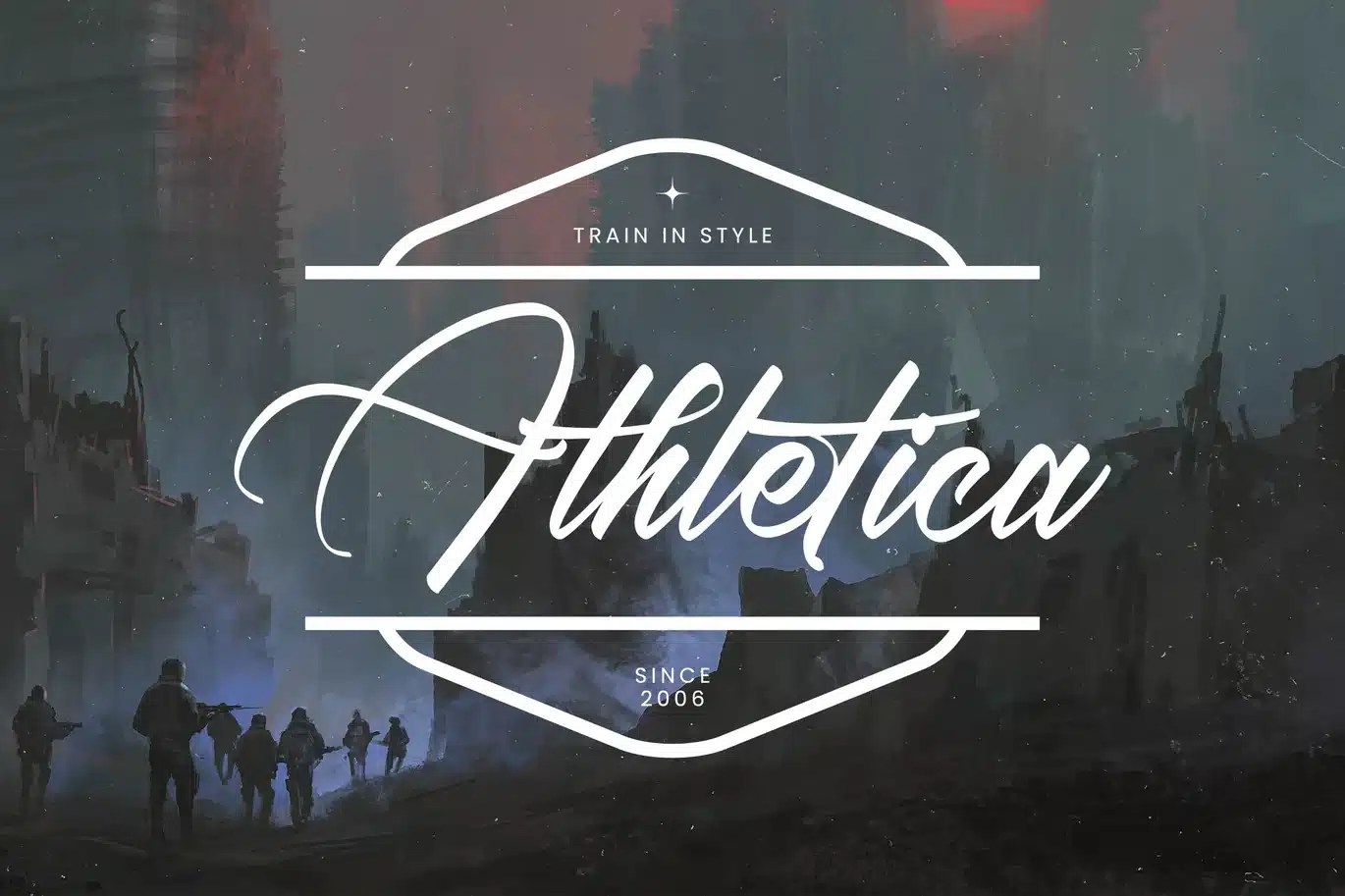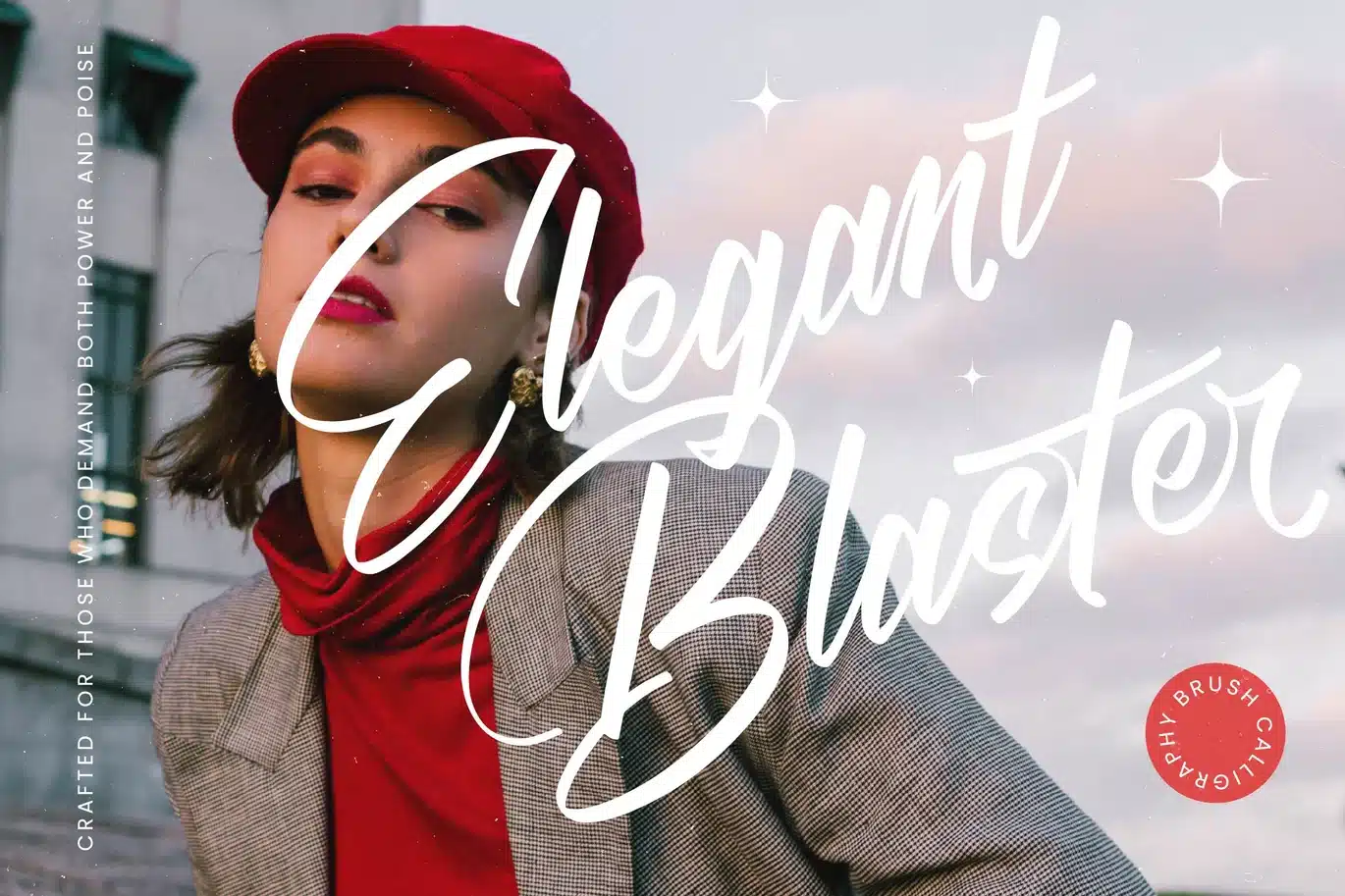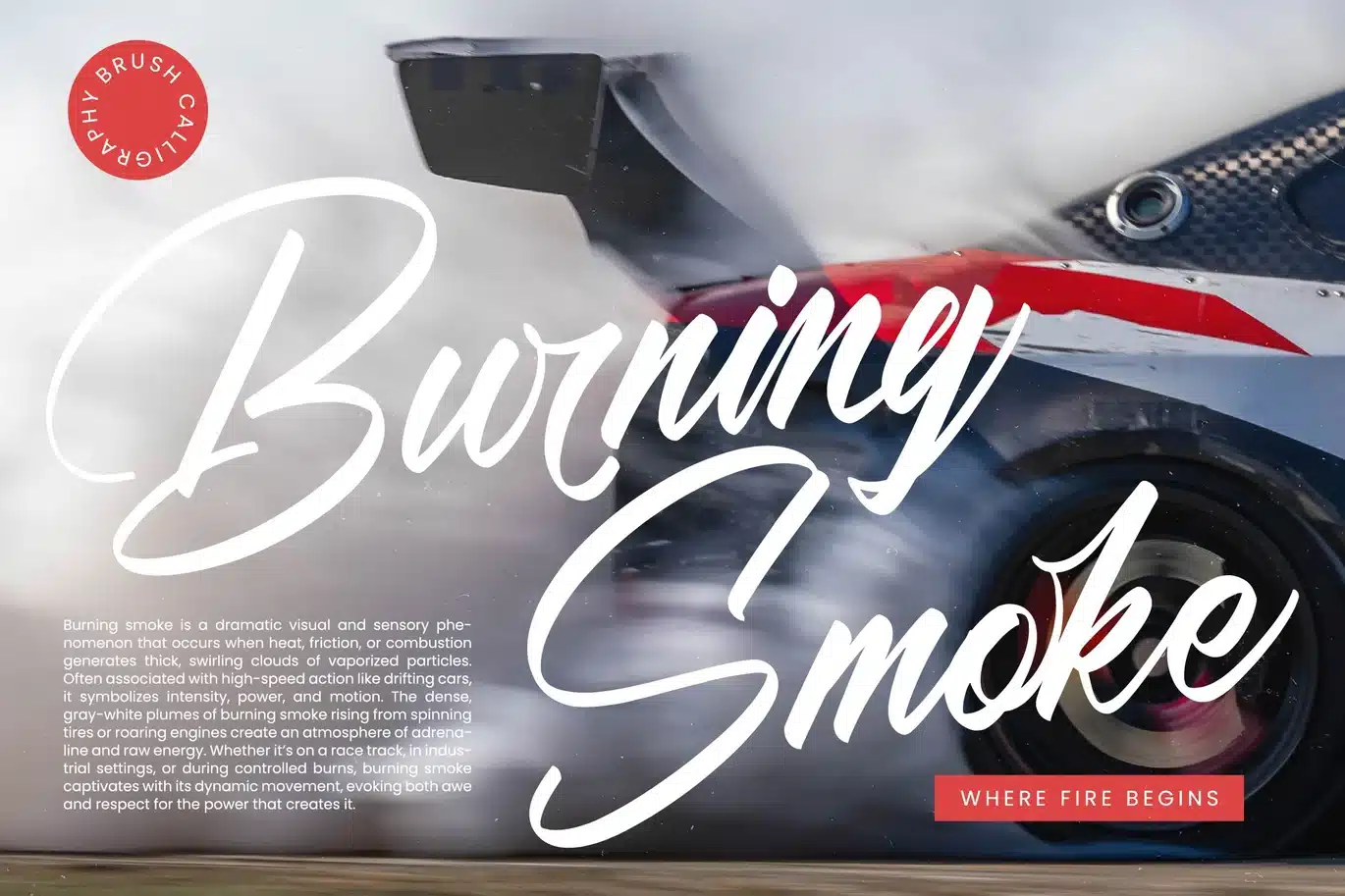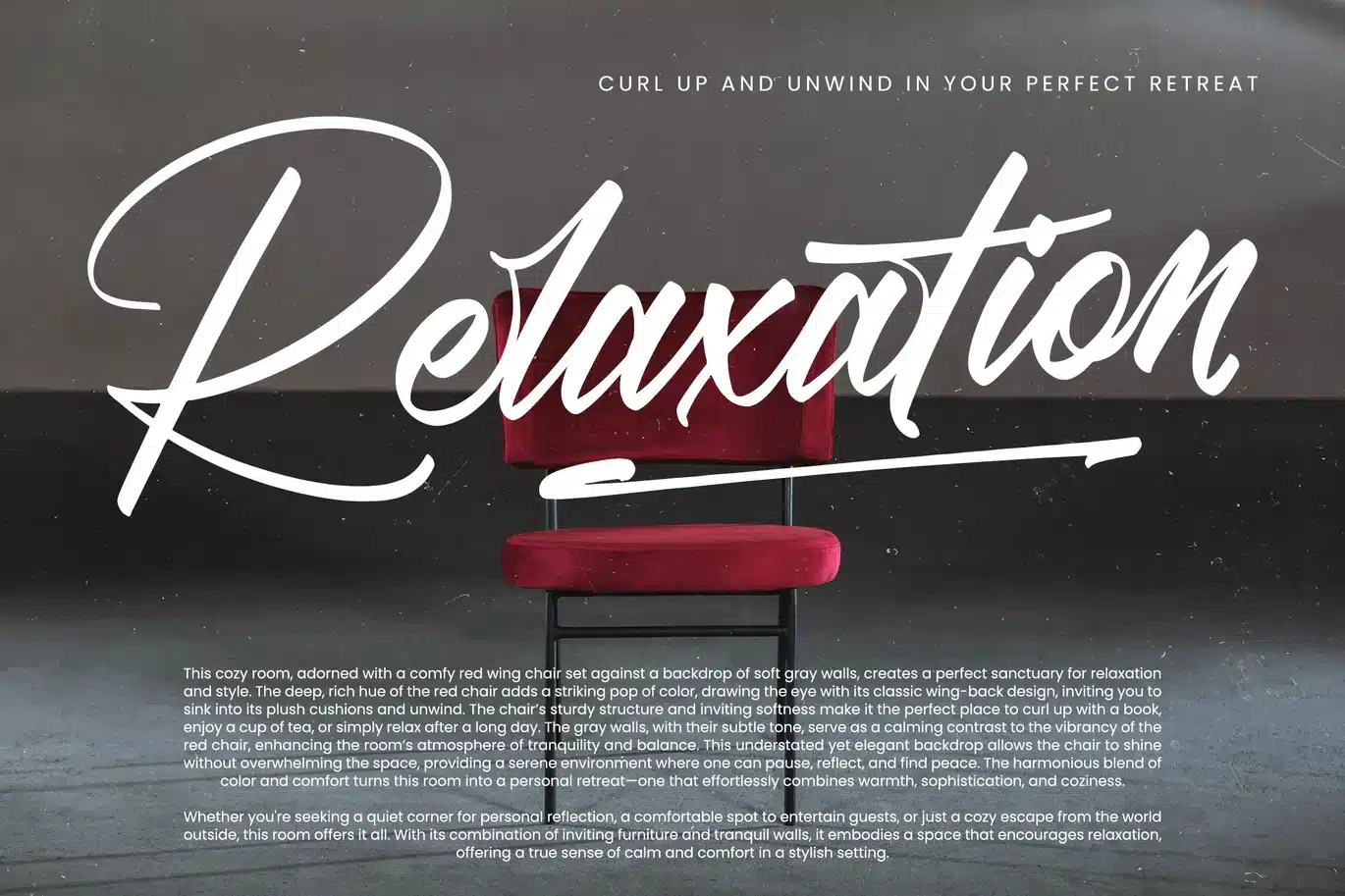
Black Fatal – Brush Calligraphy Font
Black Fatal - Brush Calligraphy Font
Black Fatal is a bold brush calligraphy font that combines raw energy with elegant handwritten artistry. Its dynamic strokes, confident flow, and expressive swashes make it a versatile typeface for projects that require impact and sophistication. Featuring 129 ligatures, 28 alternates, and 12 swashes, Black Fatal gives designers powerful tools to craft striking, custom lettering compositions.
This font shines in branding. Perfect for logos, streetwear brands, artisan products, creative agencies, and lifestyle packaging, Black Fatal communicates strength and originality. Its bold brush style ensures that branding projects look stylish, fearless, and unforgettable, making it ideal for trend-driven industries.
In editorial and publishing, Black Fatal adds artistic edge and visual drama. Magazines, posters, book covers, and album artwork benefit from its strong calligraphic appeal. It creates editorial layouts that are visually bold and captivating, turning text into standout design elements.
For web typography, this brush calligraphy adapts seamlessly across blogs, websites, online shops, and social media platforms. Its striking handwritten character ensures that digital media projects feel modern, authentic, and engaging, connecting instantly with audiences.